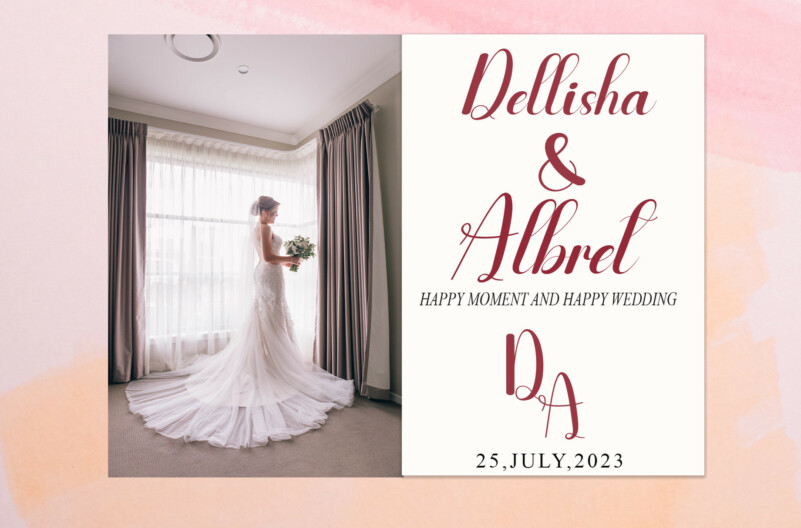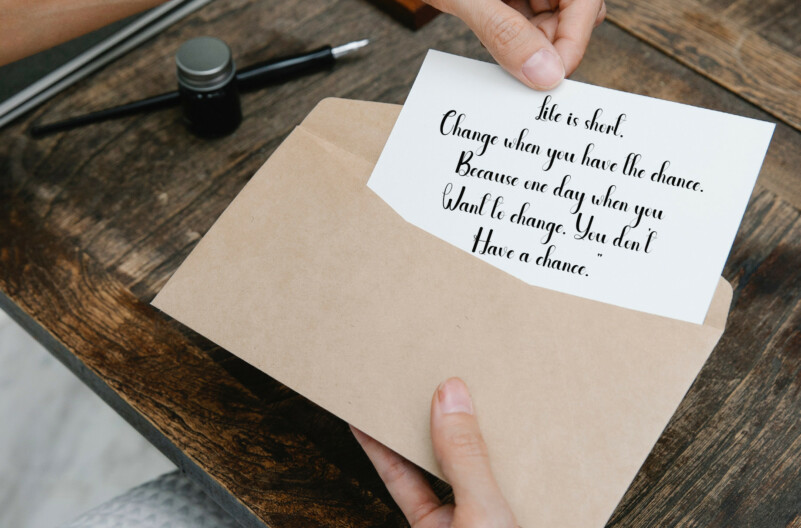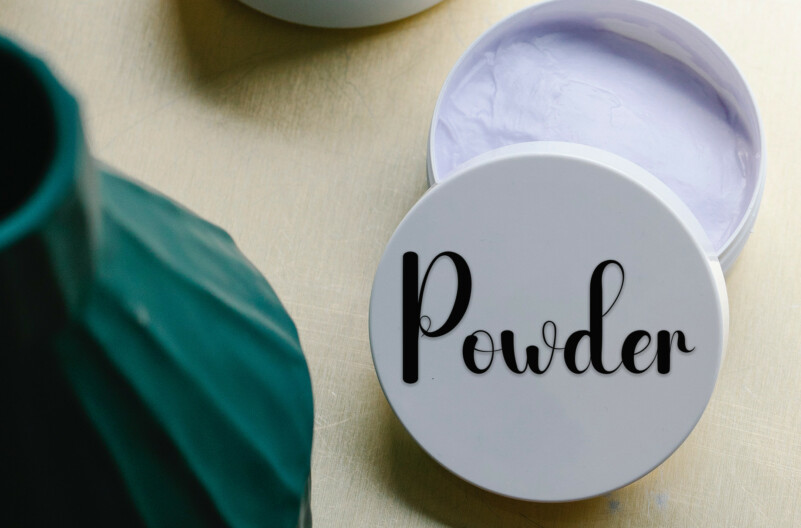
Shampoo Script Font is a sweet and friendly handwritten display font. Cute and fun, this font is ideal for writing wedding invitations, cards, or any other design that might need a playful touch!